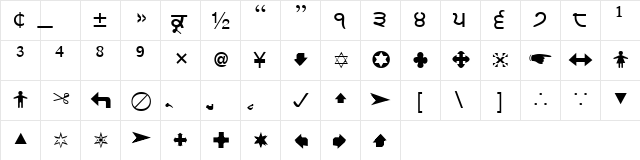
Janmeja2920A2 Normal
Design Context for Janmeja2920A2 Typeface
Janmeja2920A2 takes a measured approach to typography — its balanced proportions and neutral character make it a reliable workhorse for both digital and print work.